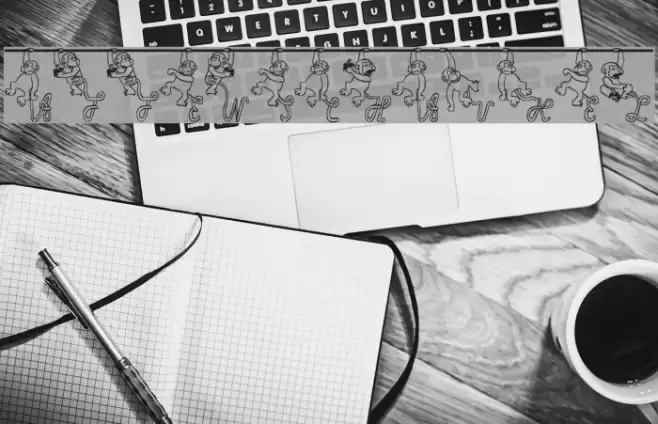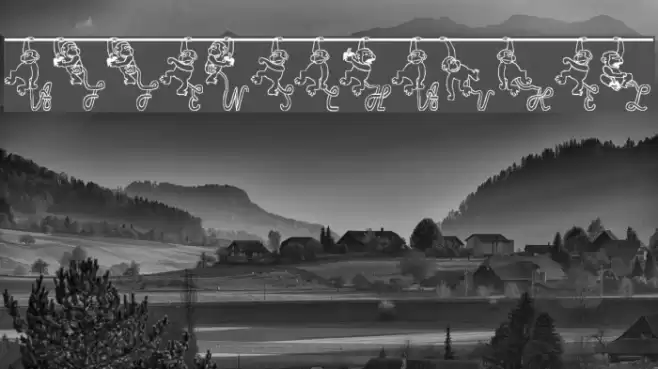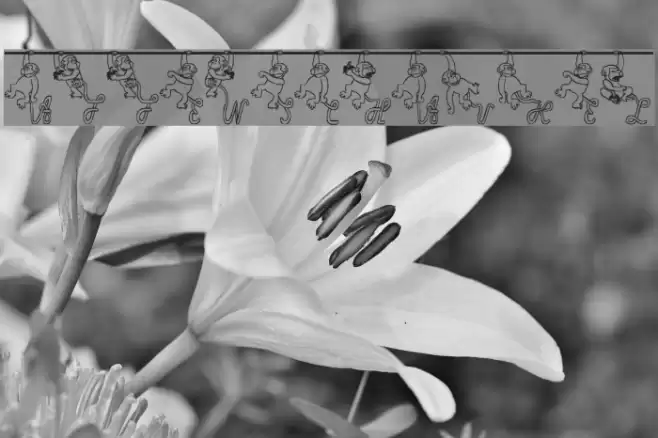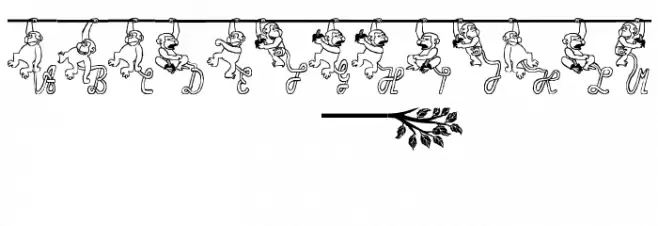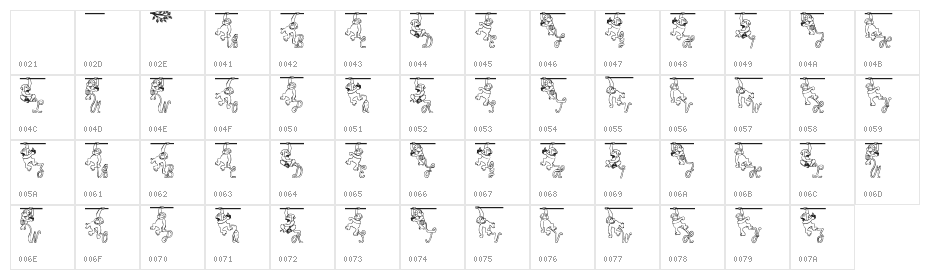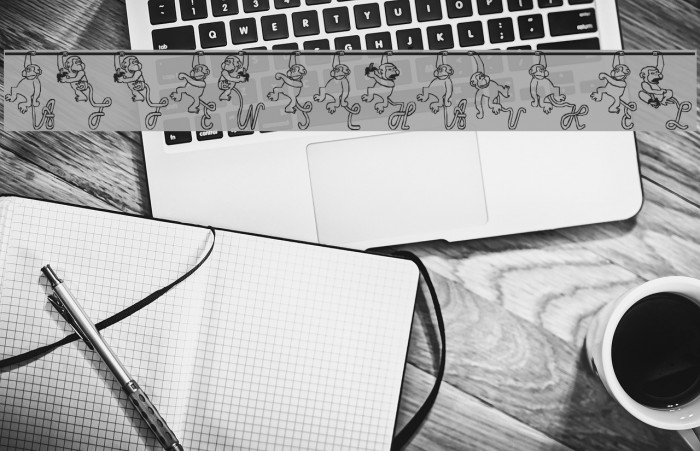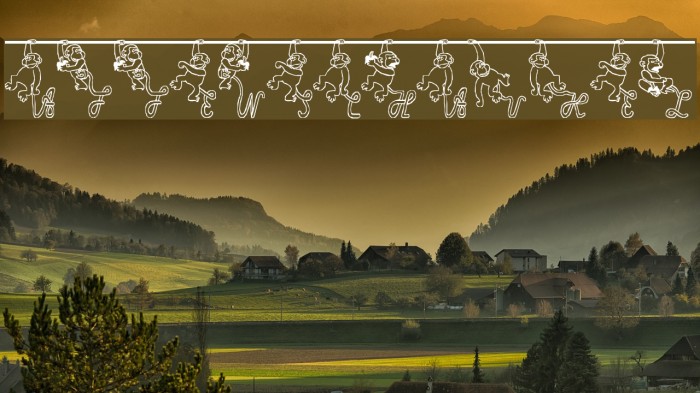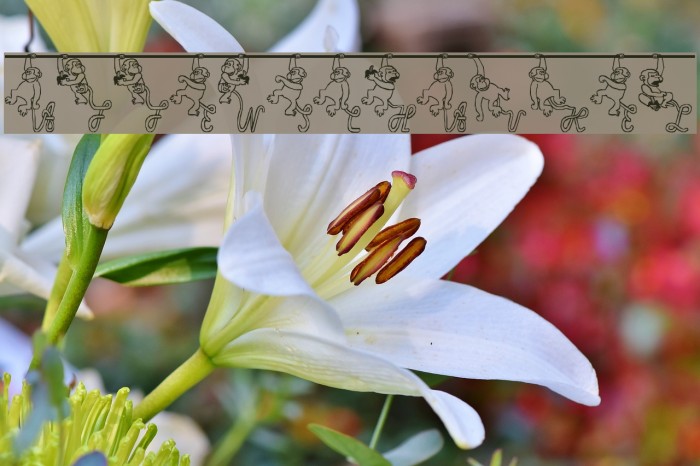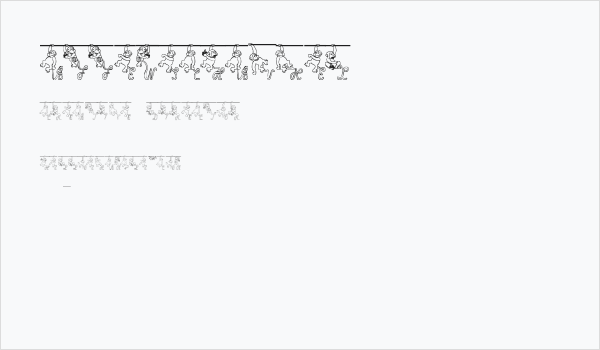
Affenschaukel Font
Affenschaukel Description
This playful and whimsical font features letters that are creatively integrated with monkey illustrations, each character appearing as if it's swinging from a vine. The design is highly decorative, with each letterform incorporating a monkey in various playful poses, adding a sense of movement and fun. The font is not meant for traditional text but rather for decorative purposes where a lively and humorous touch is desired. The characters are well-detailed, with each monkey adding a unique flair to the letter it accompanies. This font is perfect for projects that aim to capture attention with a sense of humor and creativity.
A whimsical font with letters integrated into playful monkey illustrations from Uncategorized fonts.
- Proposed Projects: Ideal for children's books, playful event invitations, themed party decorations, or any project requiring a fun and engaging visual element.
- Use Case: Logos, Decorative headings, Themed events